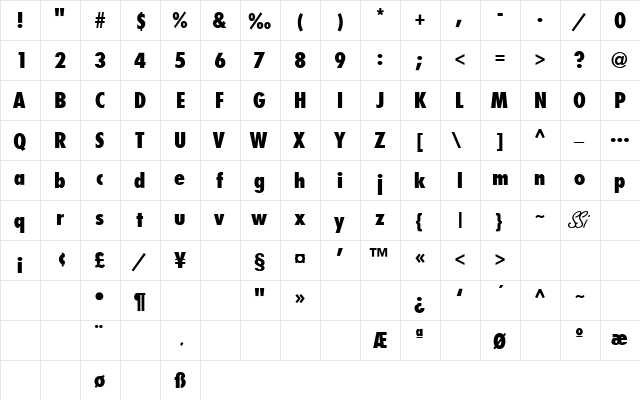
Kudos Condensed SSi Semi Bold Condensed Font Preview
Design Context for Kudos Condensed SSi Typeface
Kudos Condensed SSi takes a measured approach to typography — its balanced proportions and neutral character make it a reliable workhorse for both digital and print work. Its bold stroke weight gives it real presence on the page. Its narrow stance lets it pack a punch even in space-constrained designs.